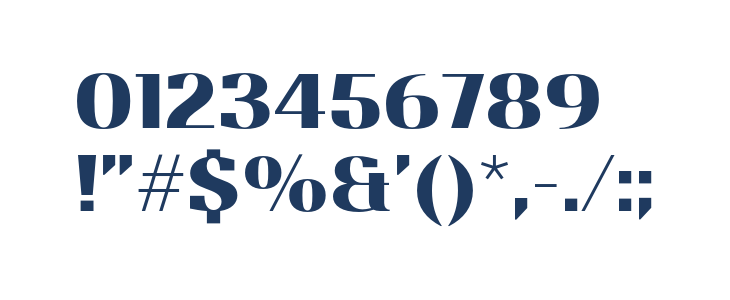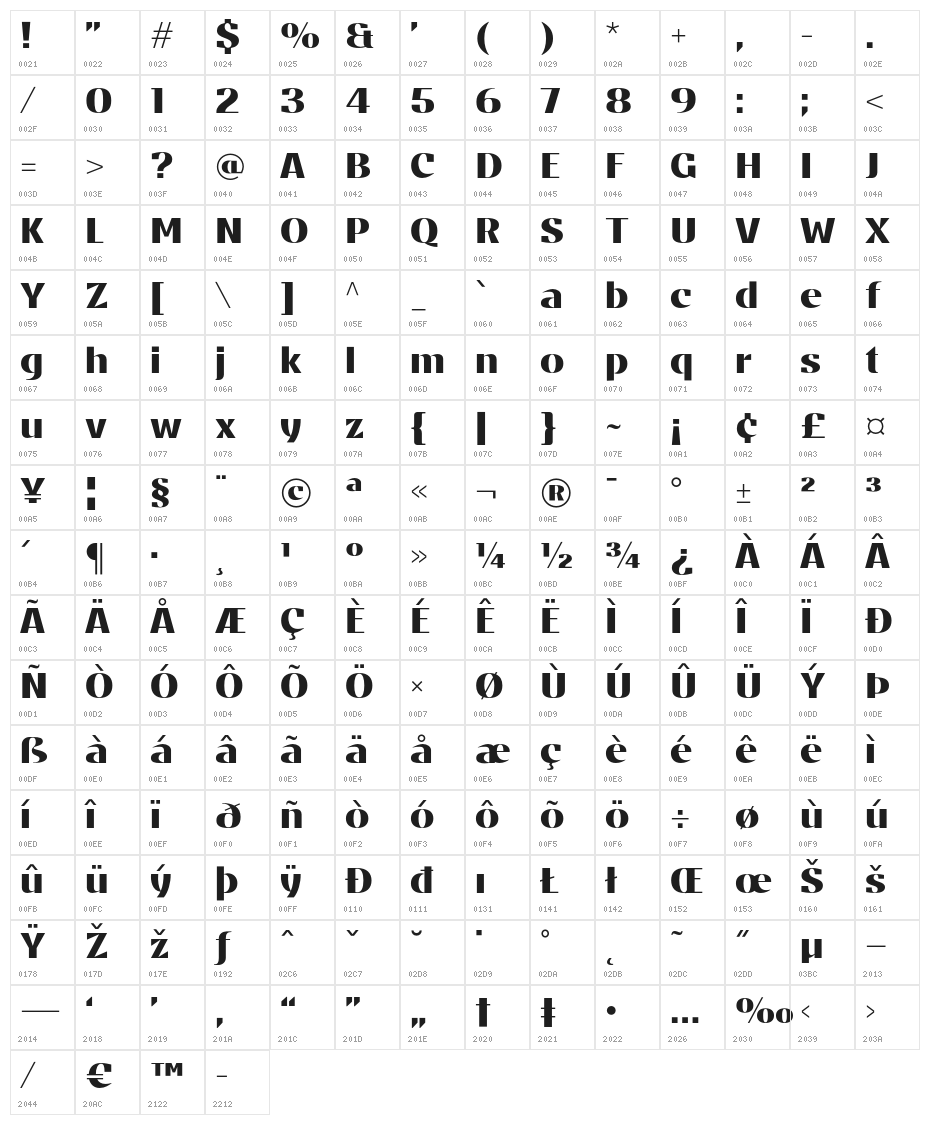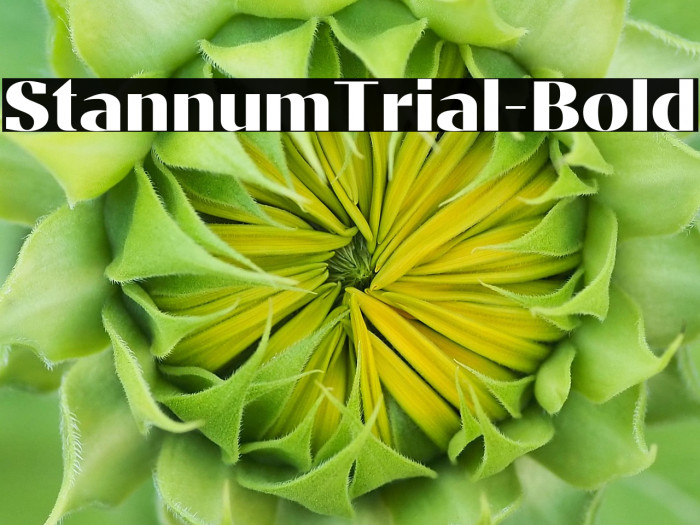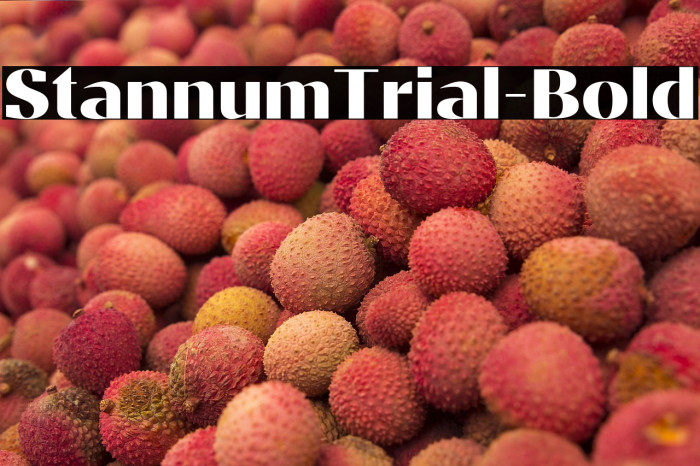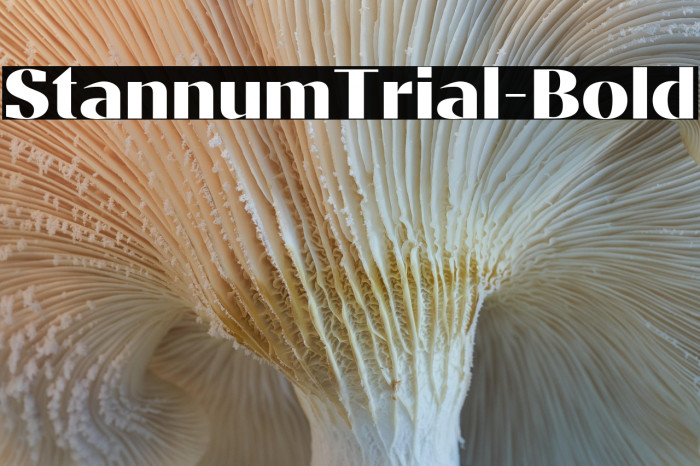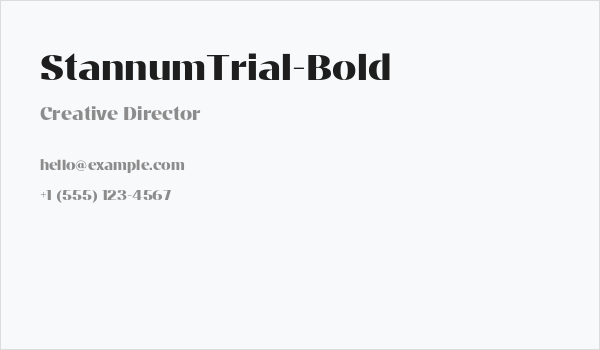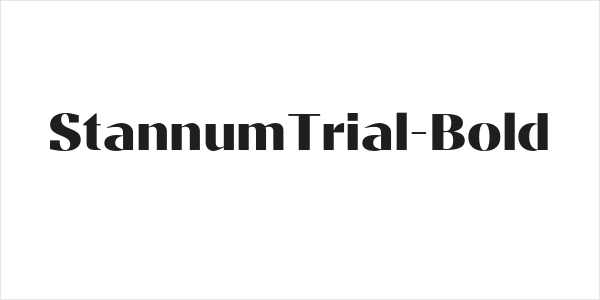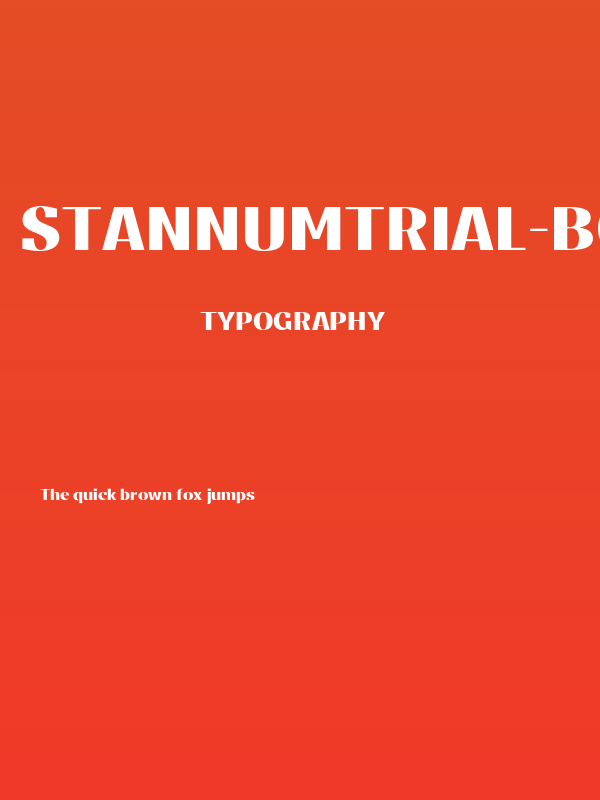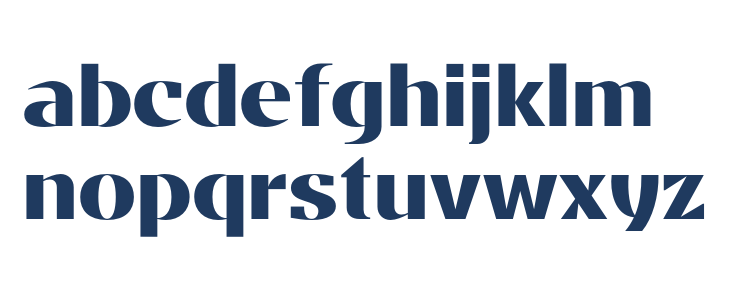
StannumTrial-Bold Font
StannumTrial-Bold Description
This font exhibits a bold and assertive style, characterized by thick strokes and a strong presence. The uppercase letters are particularly striking, with a uniform height and width that convey a sense of stability and confidence. The lowercase letters maintain this boldness while offering a slightly more rounded and approachable appearance. The numerals are equally robust, ensuring clarity and readability. Special characters are designed to match the overall bold aesthetic, making them suitable for attention-grabbing headlines or impactful designs. The font's design is modern yet timeless, making it versatile for various applications.